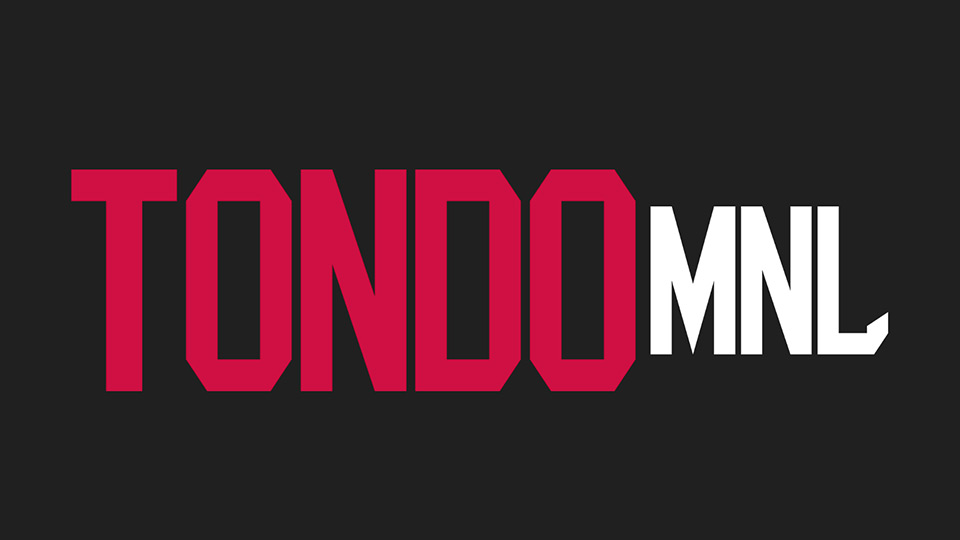
Download Tondo MNL font, a strong and bold sports block typeface. Tondo MNL is perfect for sports logos, branding, posters, apparel design, magazine headlines and so on.